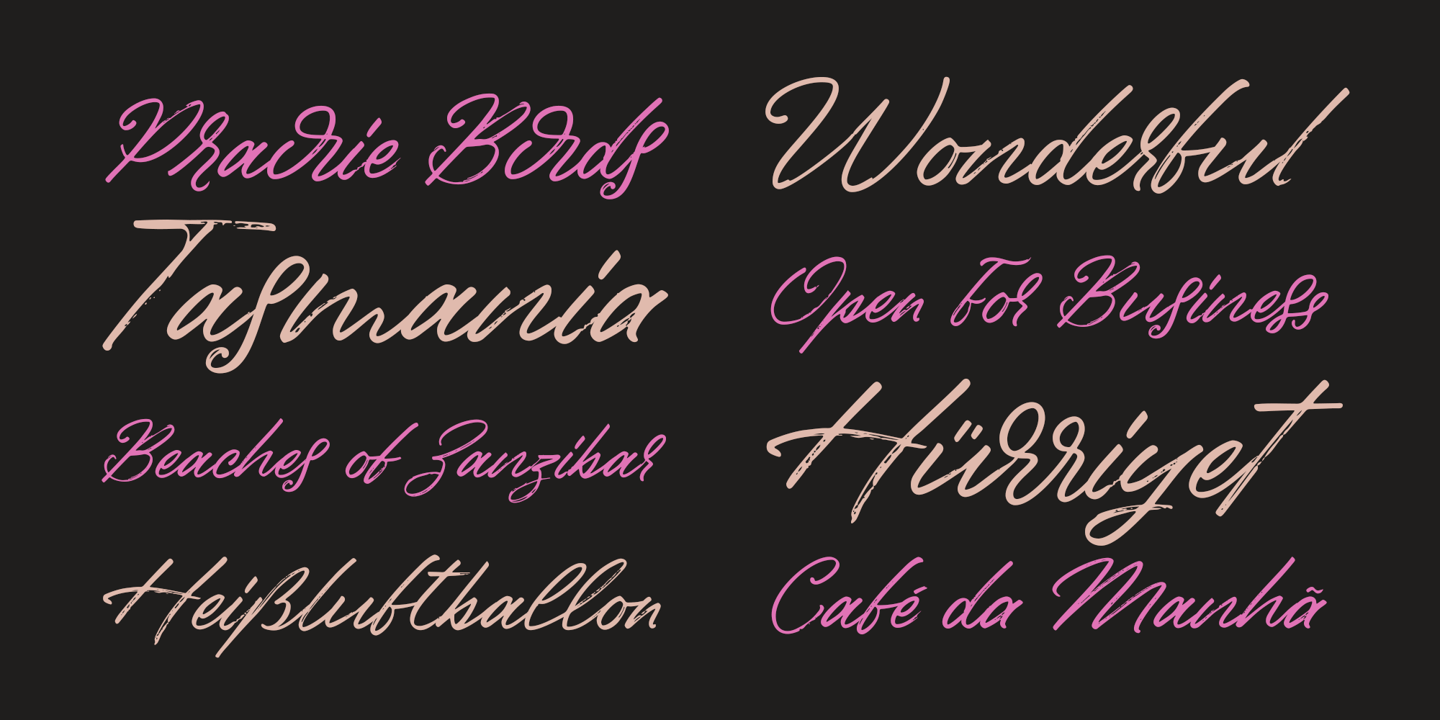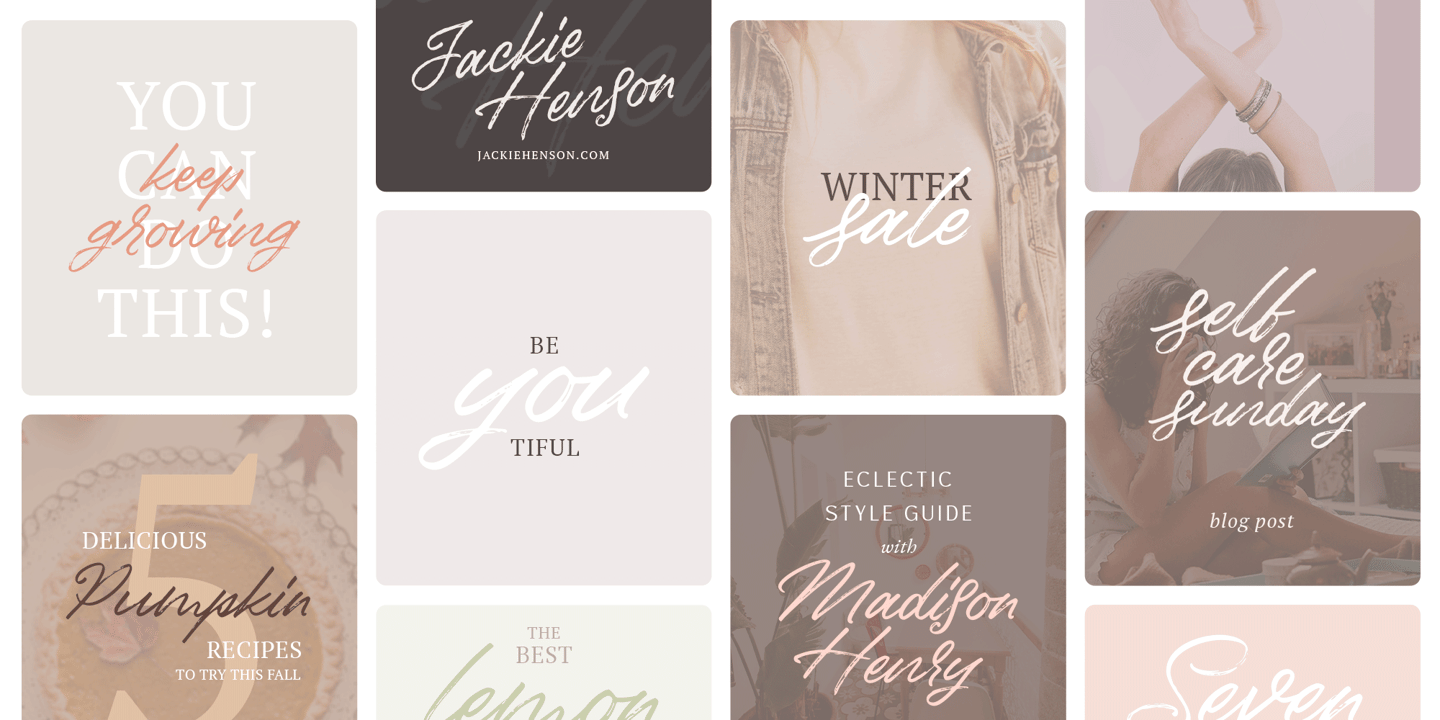
Birdinaire | A Modern Calligraphy Font
Birdinaire is a modern calligraphy font with highly slanted yet legible forms. It has a variety of ligatures and alternate letters that contribute to its originality and flow. With its textured dry brush look, Birdinaire emphasizes its handmade authentic qualities.
FEATURES
- Uppercase and Lowercase Letters
- Numerals and Punctuation
- Ligatures and Alternates
- Terminal Forms
- Arrows
- Multilingual Character Set